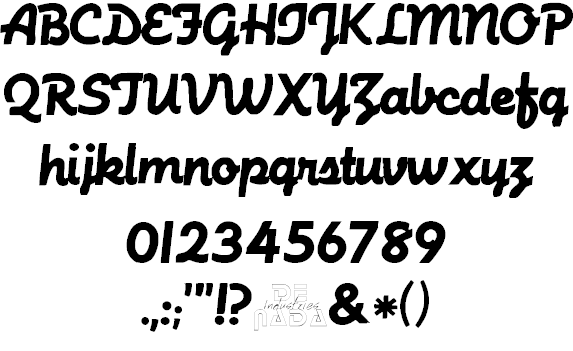
Free Machine Script Font
Free machine script font for graphic designers that need to present their work in a professional way. Font Space has created this amazing and beautiful free font. Amaze your fellow designers and create stunning designs with this beautiful font.